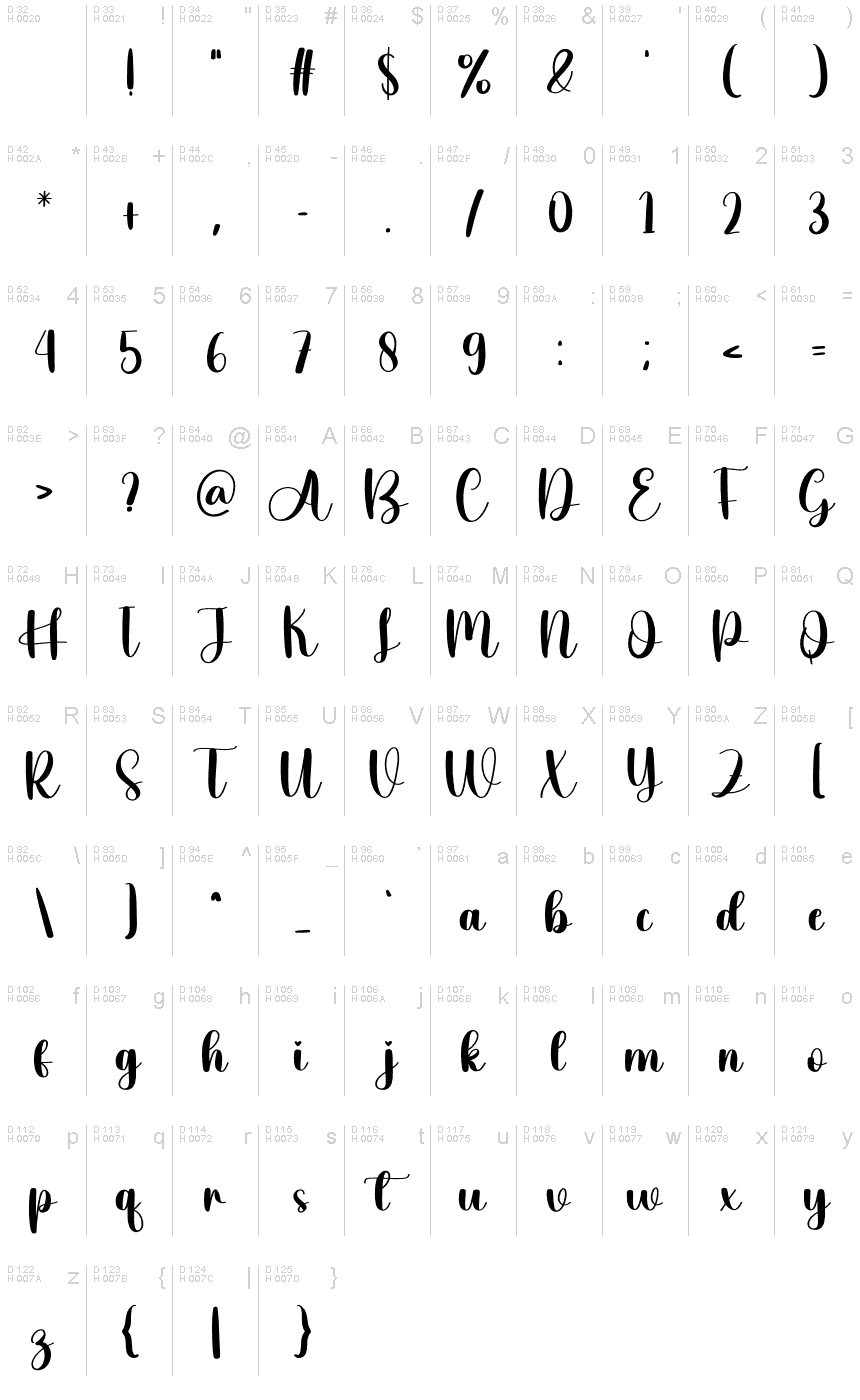
Simple Halloween
Simple Halloween, created by the talented designer Scratchones, is a captivating calligraphy font that adds a touch of elegance and whimsy to any project.
With its fluid strokes and delicate curves, this font lends itself perfectly to creating enchanting invitations for Halloween parties or mystical wedding celebrations. Its versatility also makes it ideal for crafting spooky greeting cards, bewitching logos for haunted attractions, or even adding a touch of magic to social media posts during the spooky season.
Simple Halloween brings an eerie charm that is sure to captivate and delight any audience.
The latest style letters are perfect for wall displays, wedding invitations, social media post logos, advertisements, product packaging, product designs, labels, photography, watermarks, invitations, stationery, and any project that requires taste handwriting.
With its fluid strokes and delicate curves, this font lends itself perfectly to creating enchanting invitations for Halloween parties or mystical wedding celebrations. Its versatility also makes it ideal for crafting spooky greeting cards, bewitching logos for haunted attractions, or even adding a touch of magic to social media posts during the spooky season.
Simple Halloween brings an eerie charm that is sure to captivate and delight any audience.
The latest style letters are perfect for wall displays, wedding invitations, social media post logos, advertisements, product packaging, product designs, labels, photography, watermarks, invitations, stationery, and any project that requires taste handwriting.